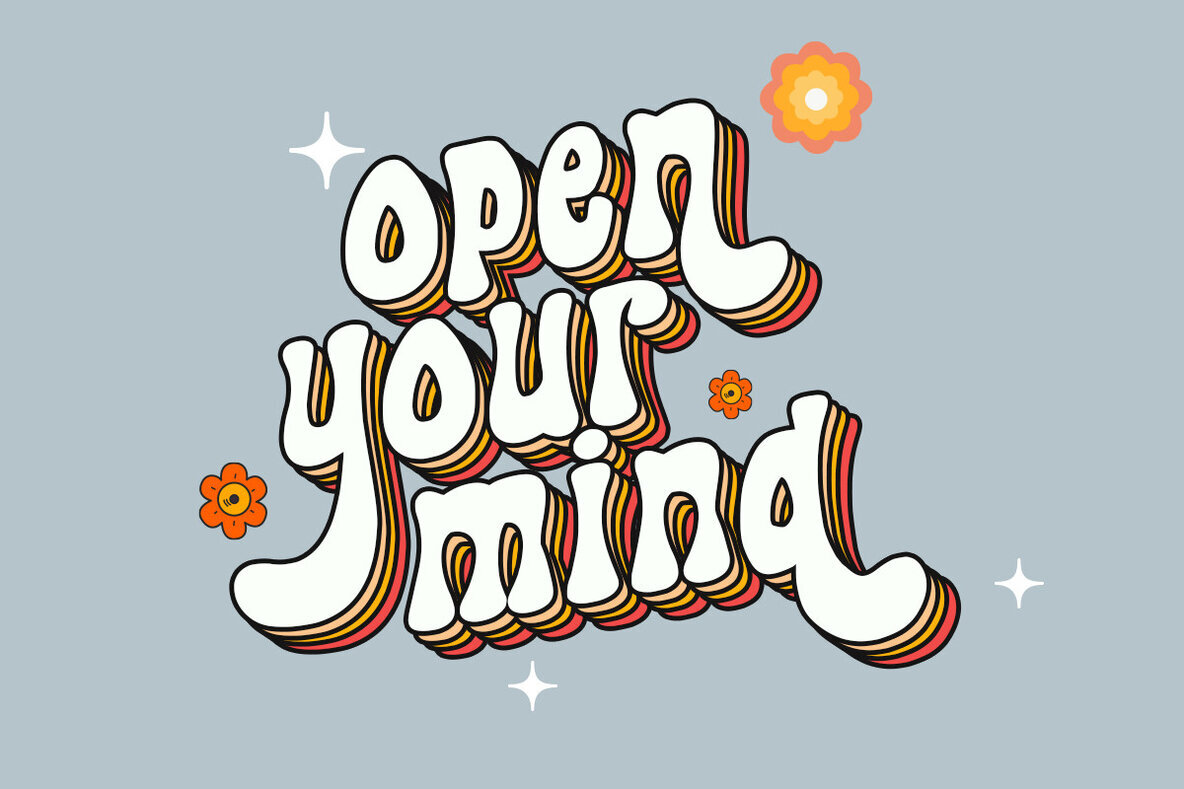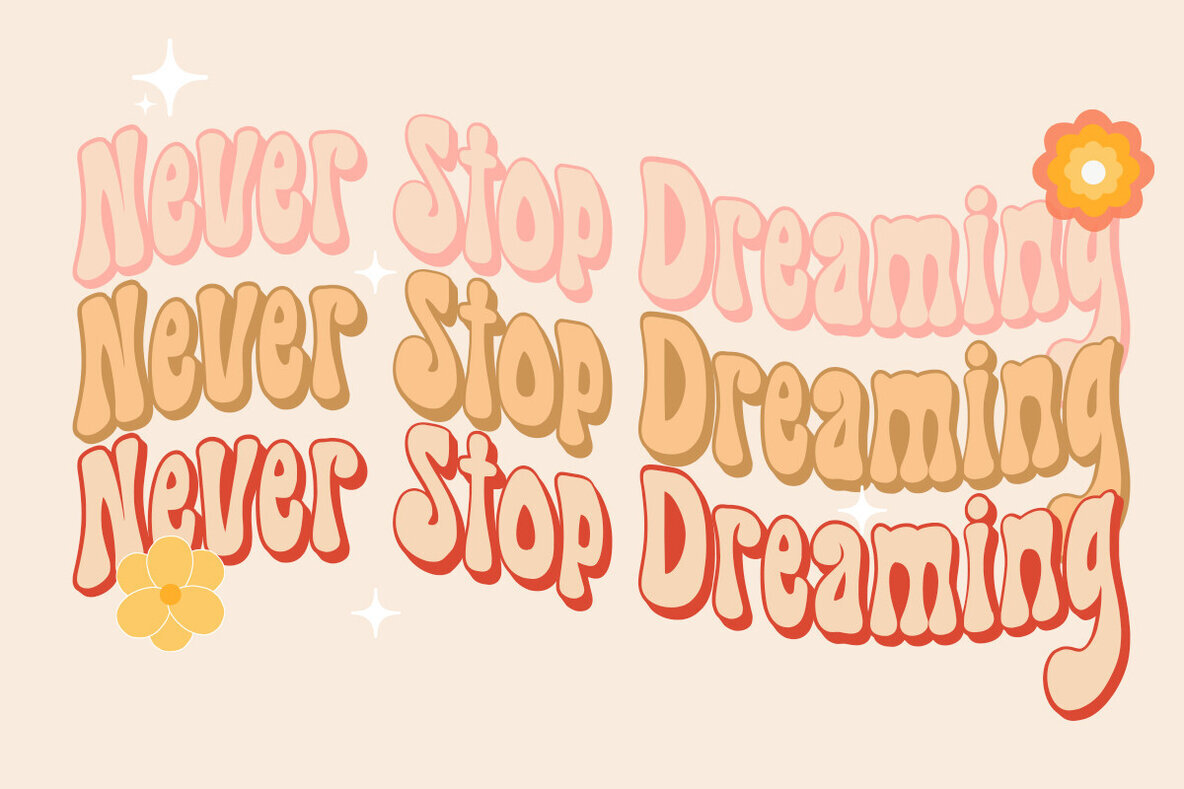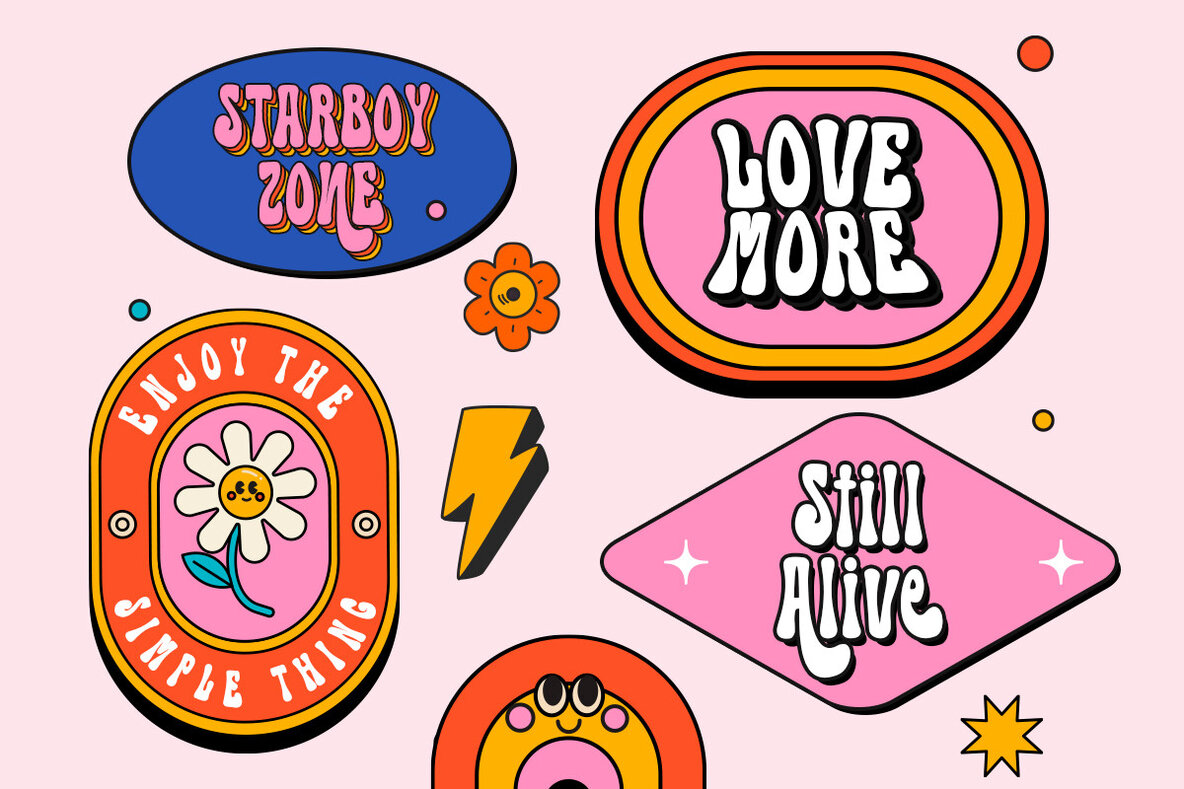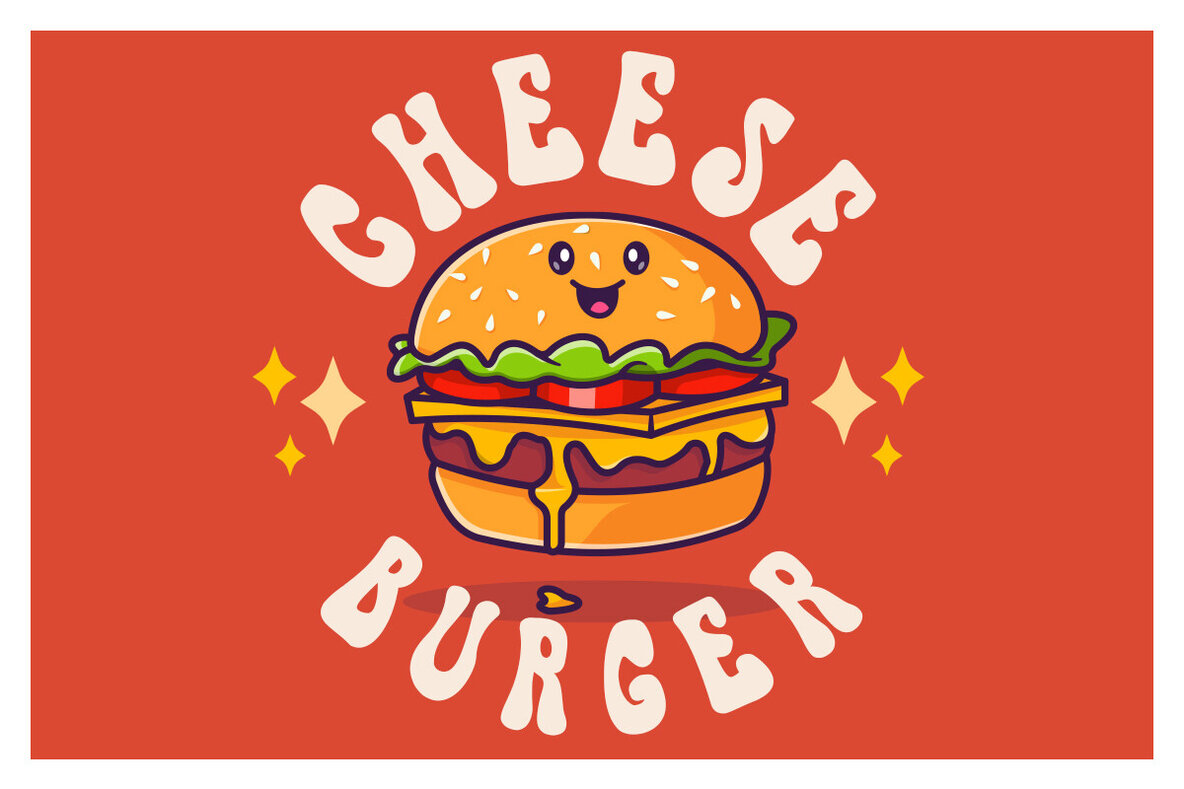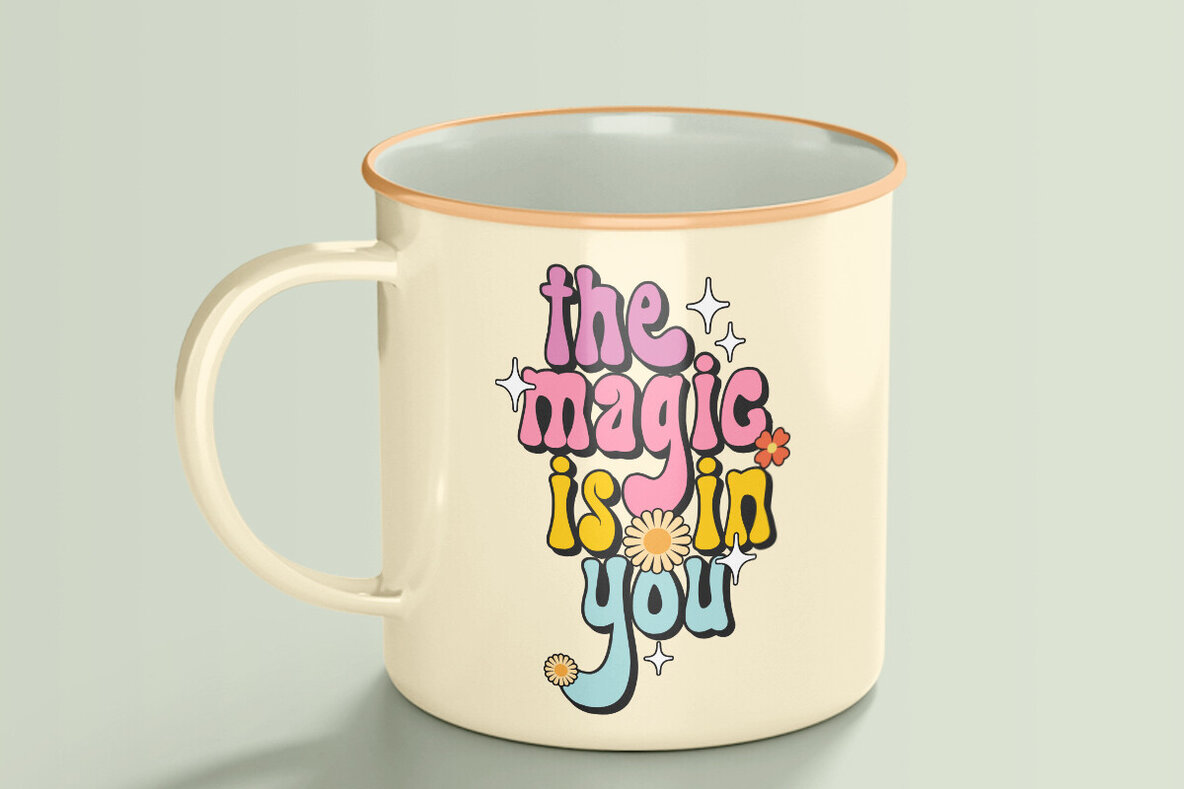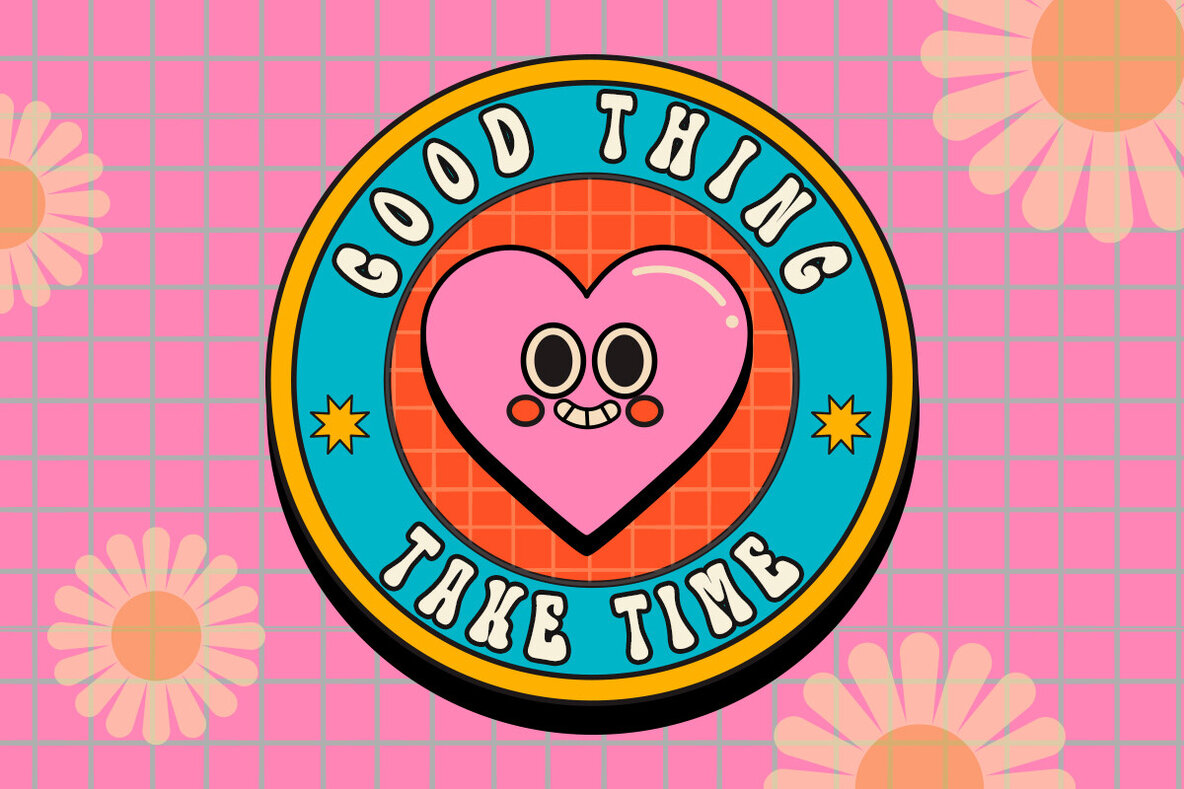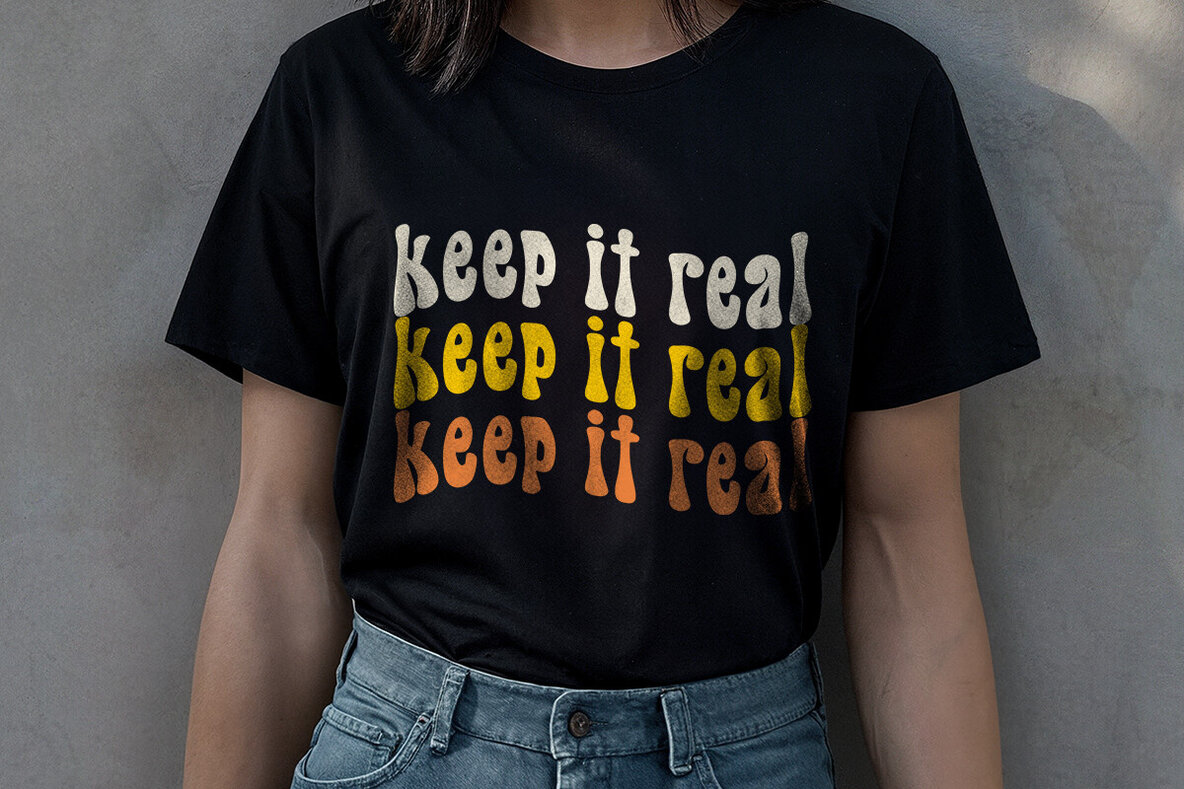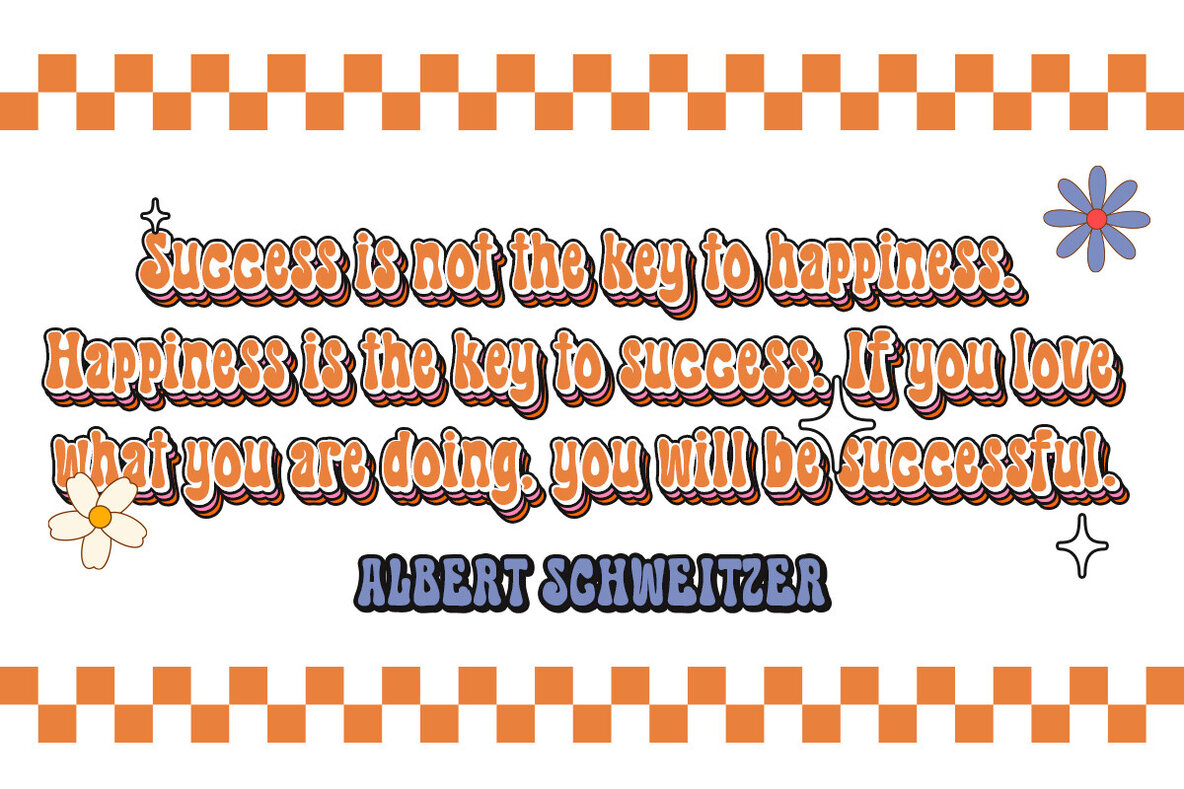
Sexophone Rhythm Font
Sexophone Rhythm is a dynamic hand brush font that brings a handmade and groovy aesthetic to your projects. Ideal for those working with thick watercolor designs or handwriting styles, this typeface adds a unique flair to blog titles, posters, wedding elements, and clothing. It shines equally on book covers, business cards, greeting cards, branding, and merchandise, making it a versatile choice for creative professionals.
This font package includes a comprehensive set of characters, including uppercase and lowercase letters, ligatures, and alternates. Additionally, the font provides punctuation, numbers, and multilingual support, ensuring you can communicate your message effectively across different languages and design contexts. Whether you're aiming for a casual or artistic look, Sexophone Rhythm caters to a variety of design needs.